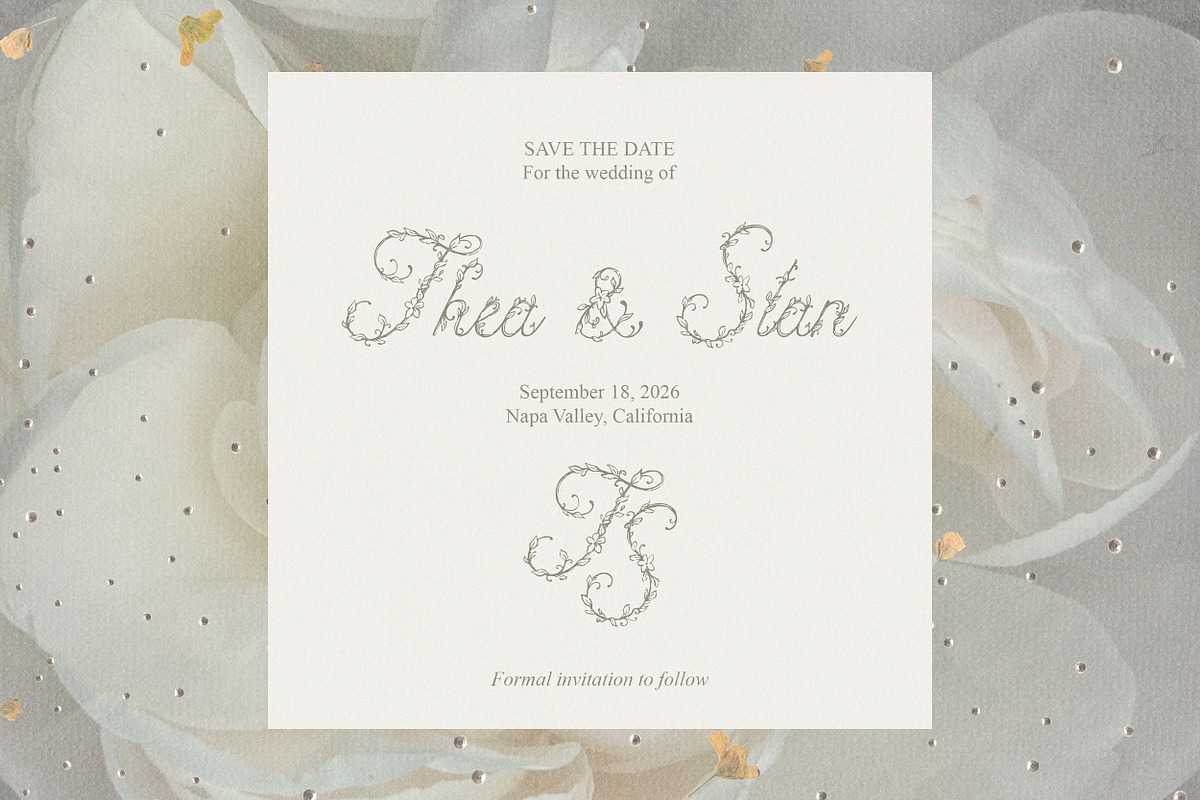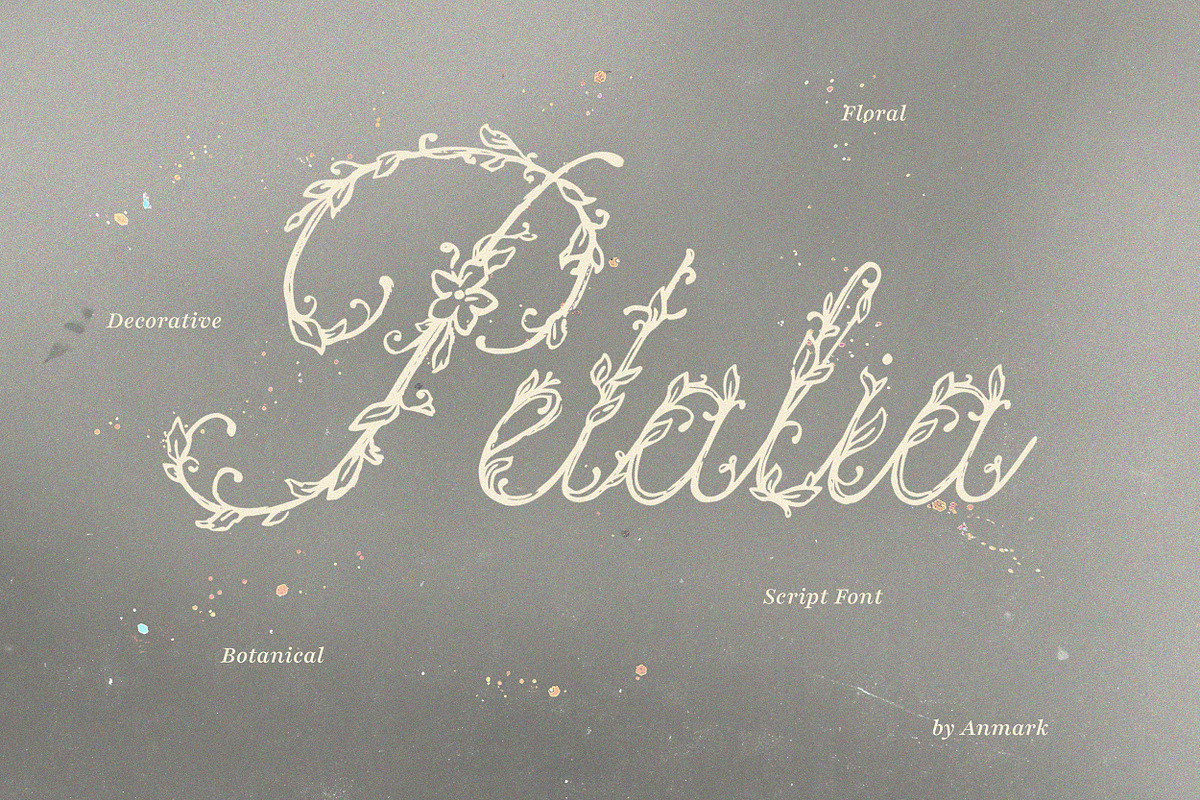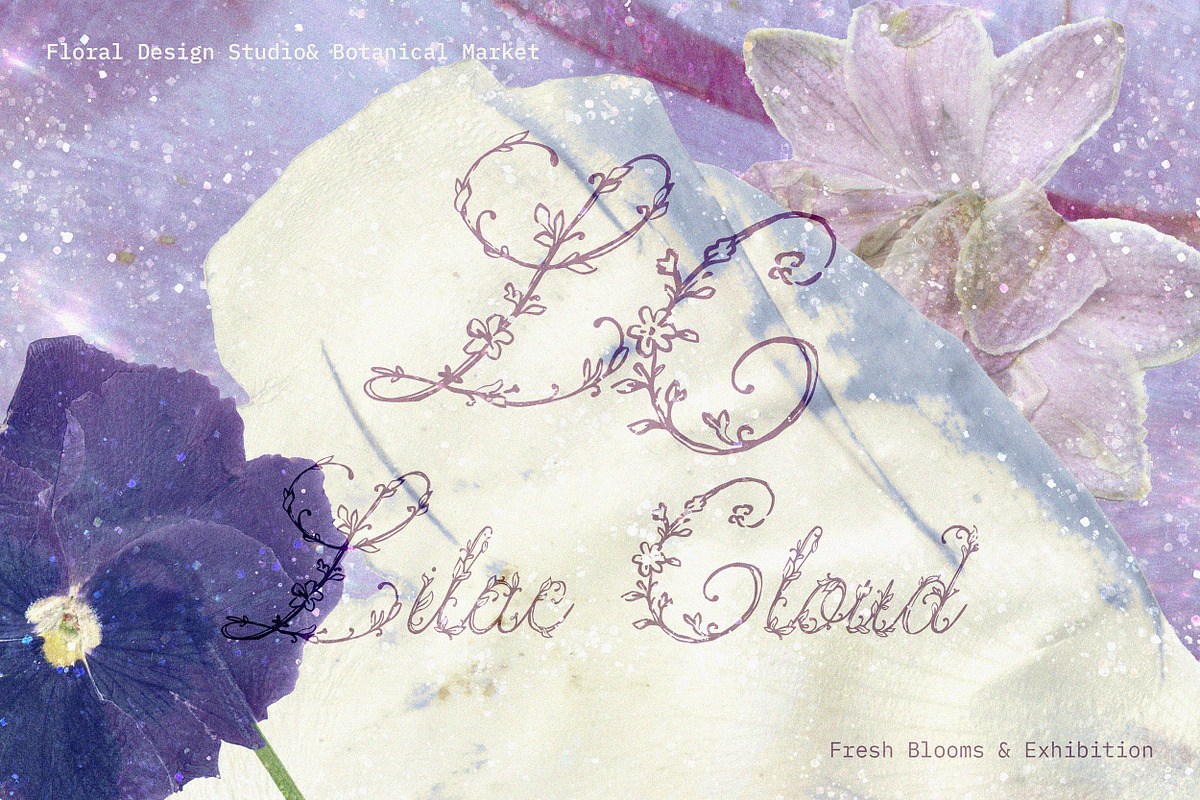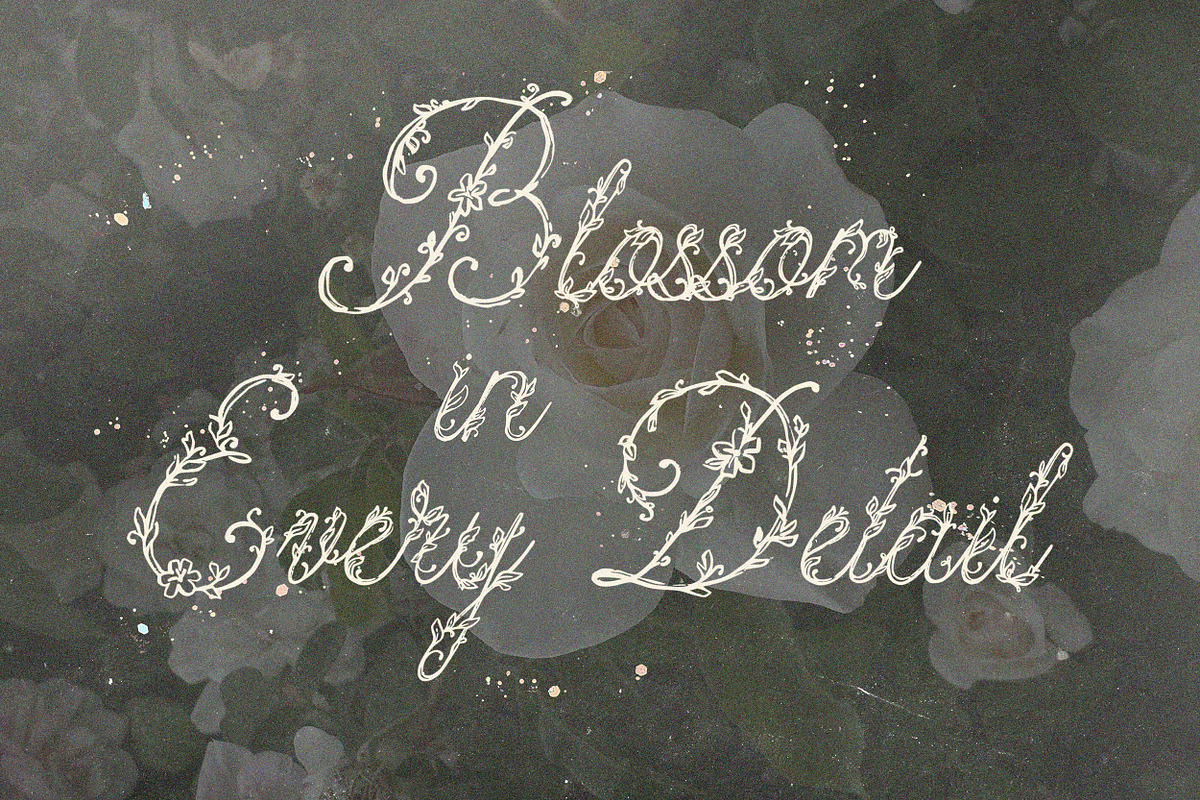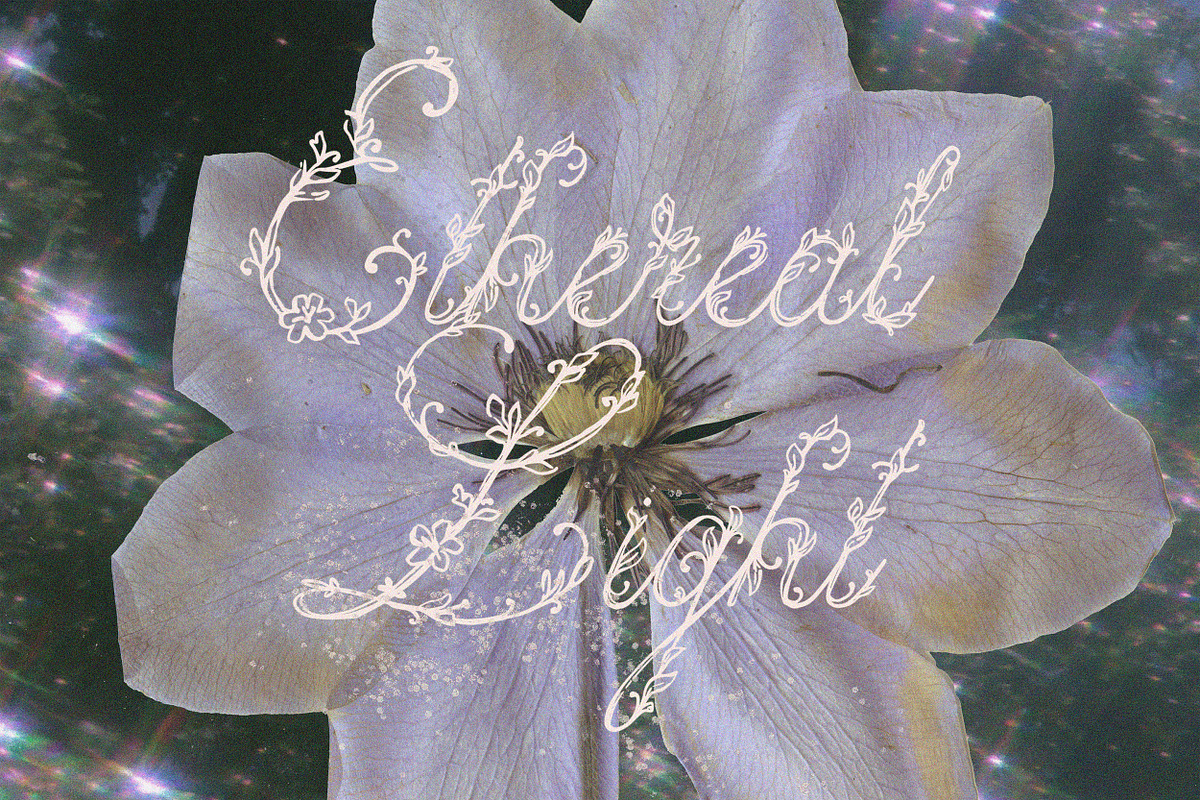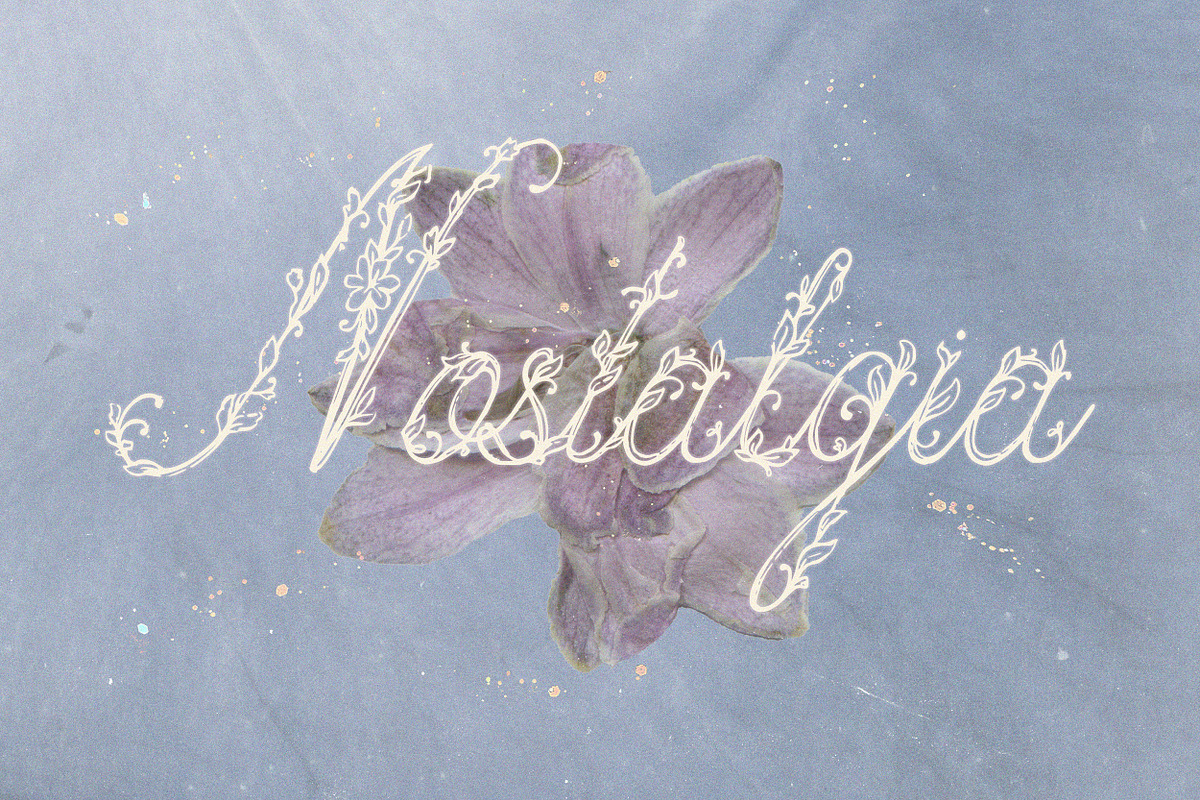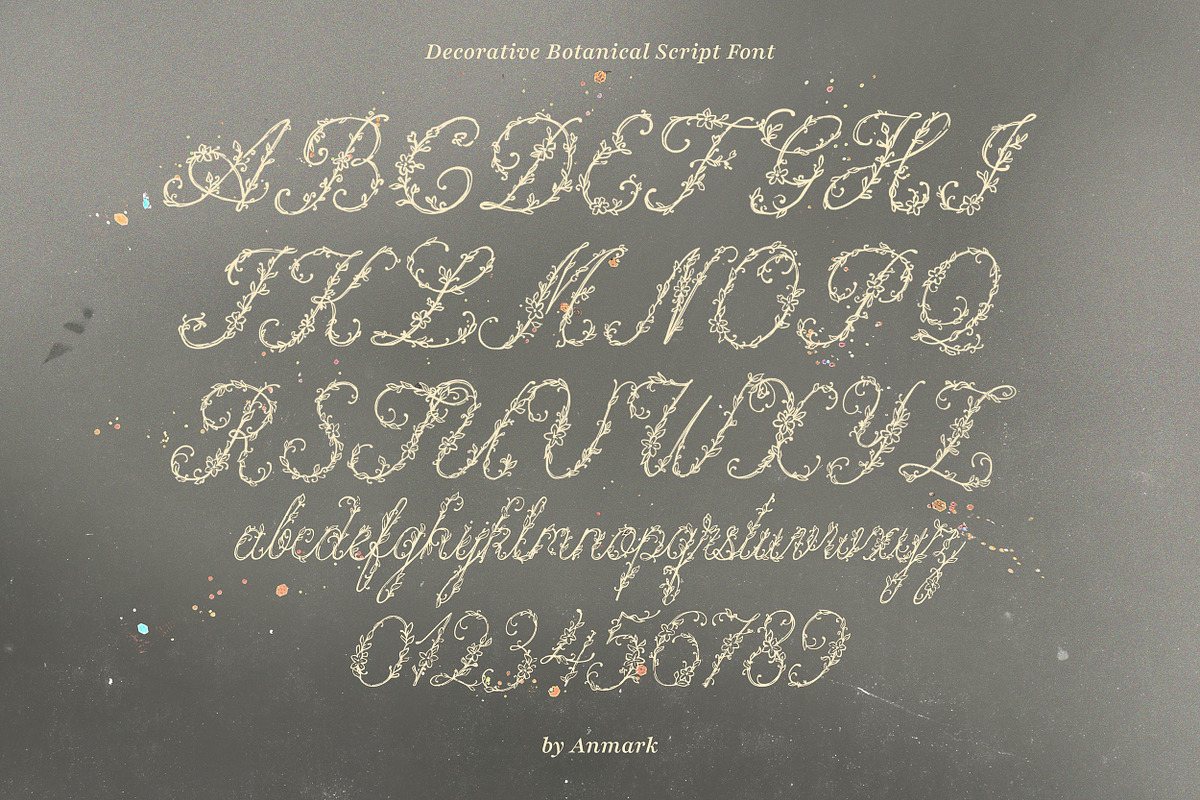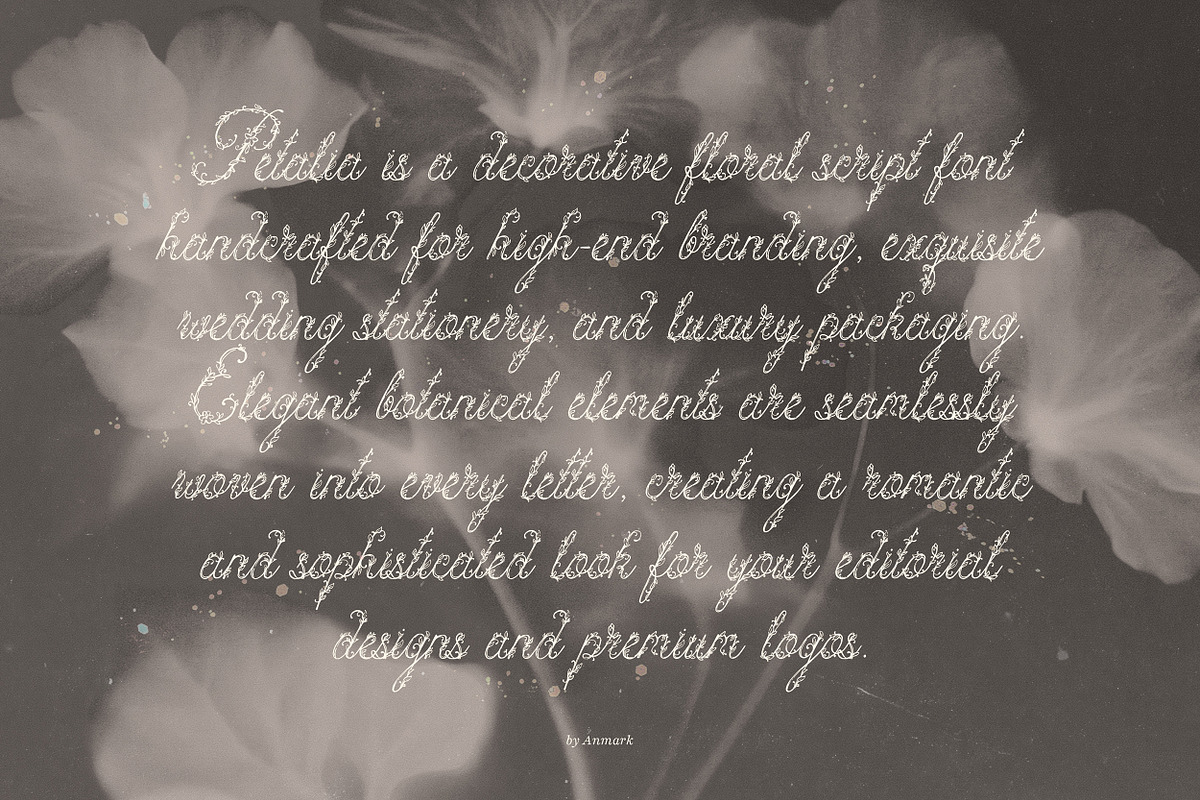
Petalia Decorative Floral Font
Petalia is an elegant calligraphic script font that seamlessly blends botanical beauty with fine typography. Every single letter is meticulously decorated with handcrafted flowers, delicate petals, and winding leaves. This decorative floral typeface delivers a natural, sophisticated aesthetic to your designs, making it a standalone art piece for high-end creative projects.
The botanical nature of Petalia makes it an ideal choice for luxury branding, romantic wedding stationery, and bespoke logo designs. It excels in creating exquisite monograms, editorial layouts, cosmetic packaging, and upscale magazine headlines. For greeting cards, premium product labels, or artistic book covers, this font infuses your work with a timeless and refined floral charm.